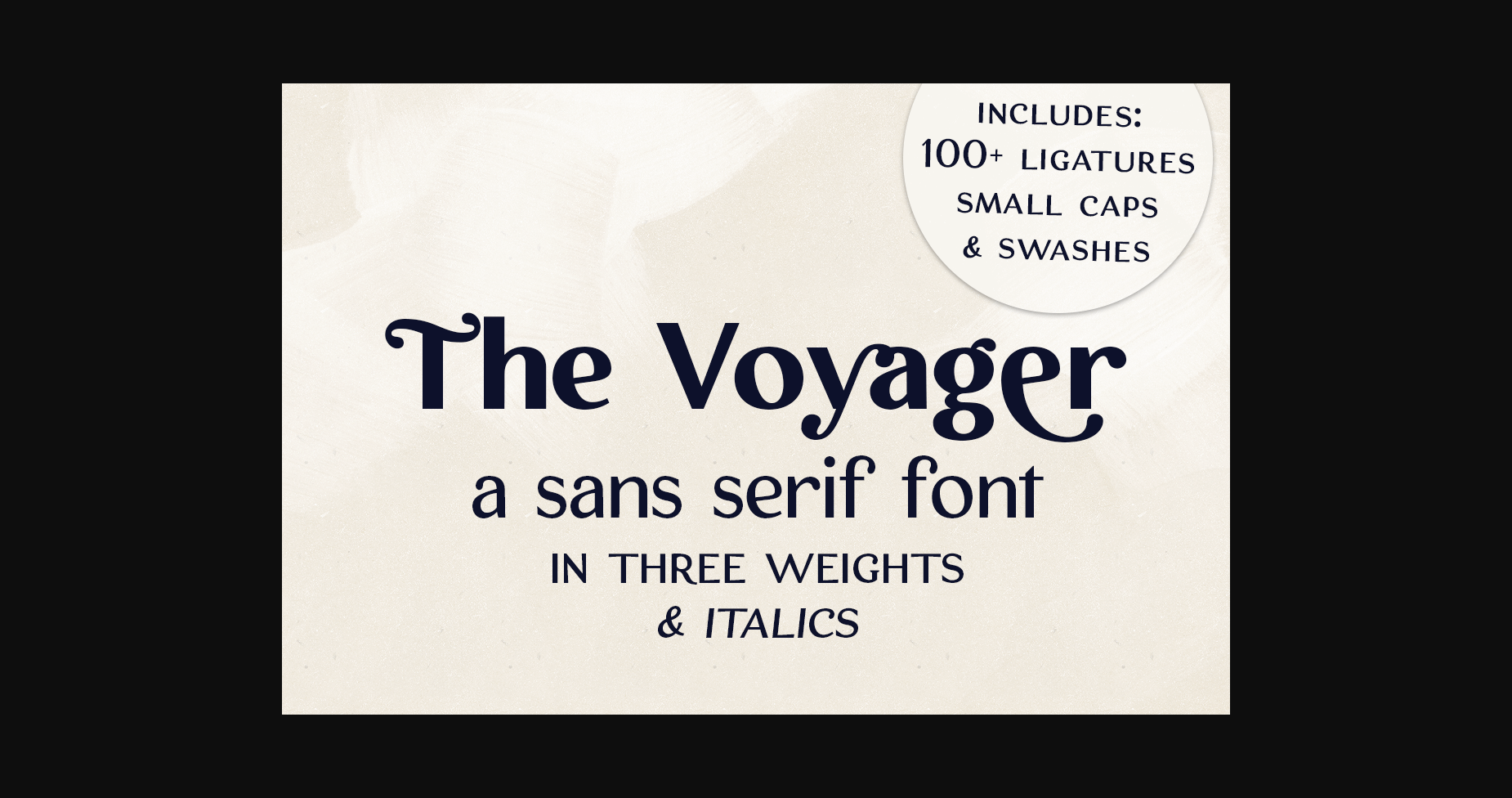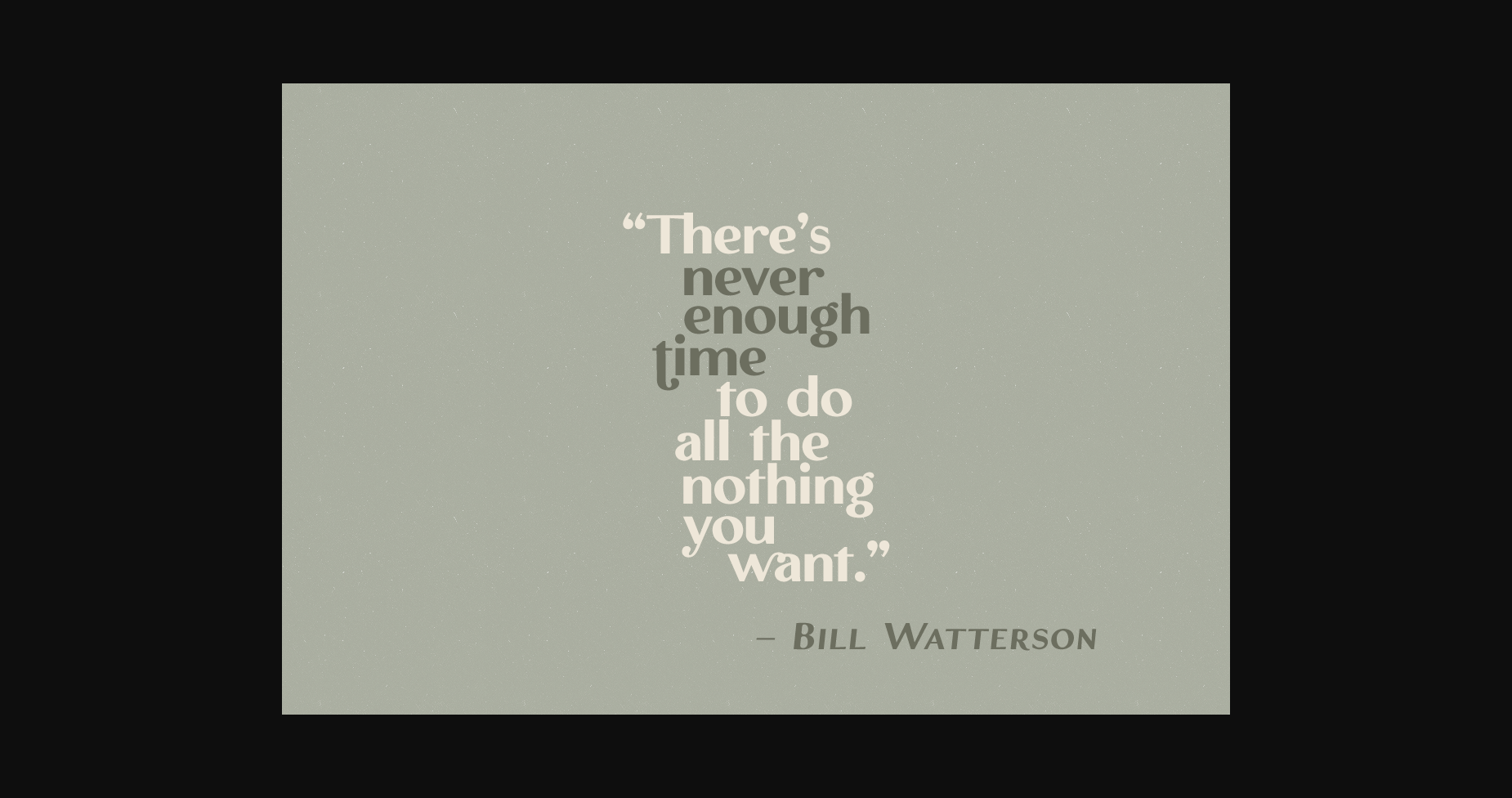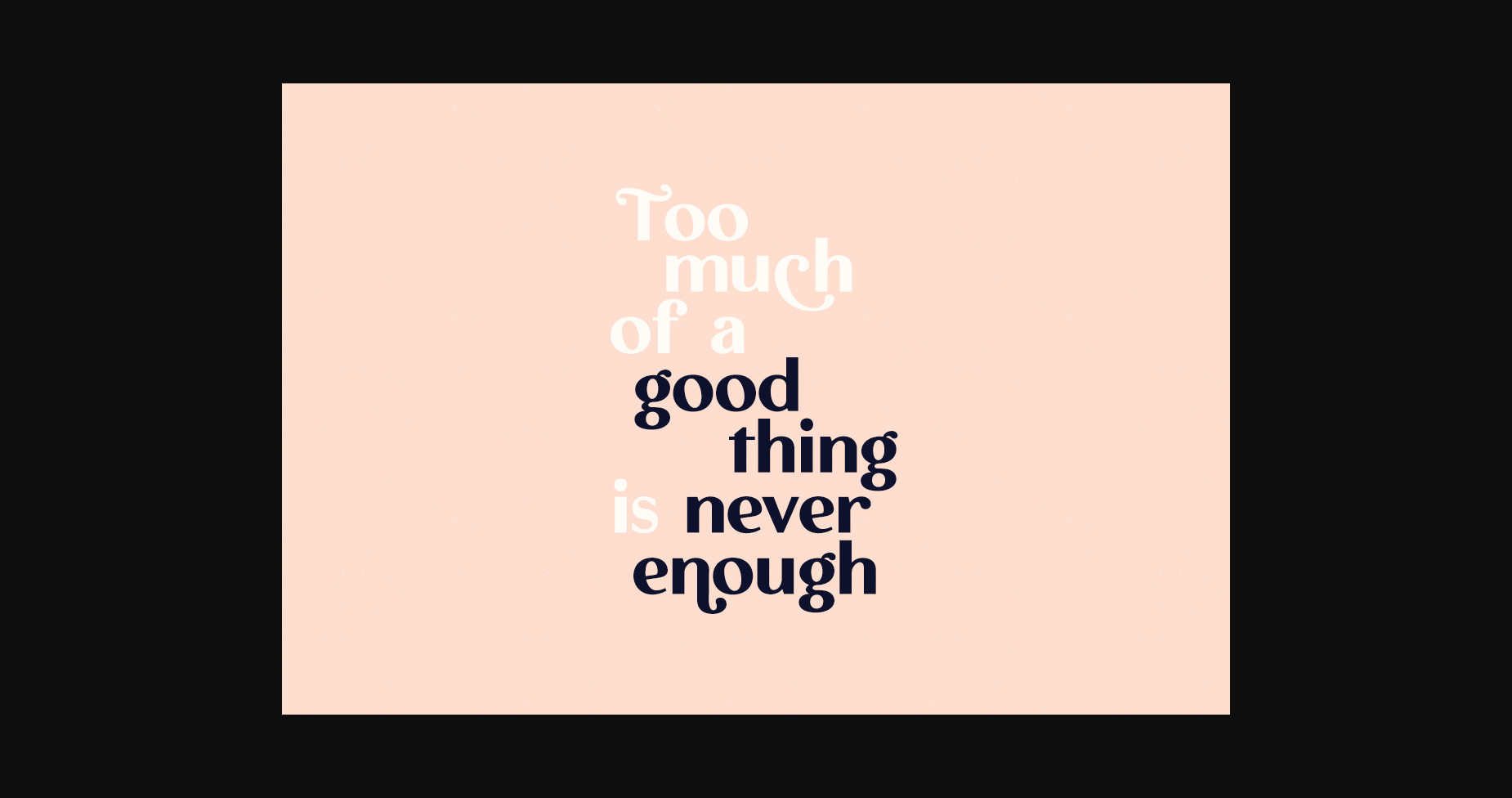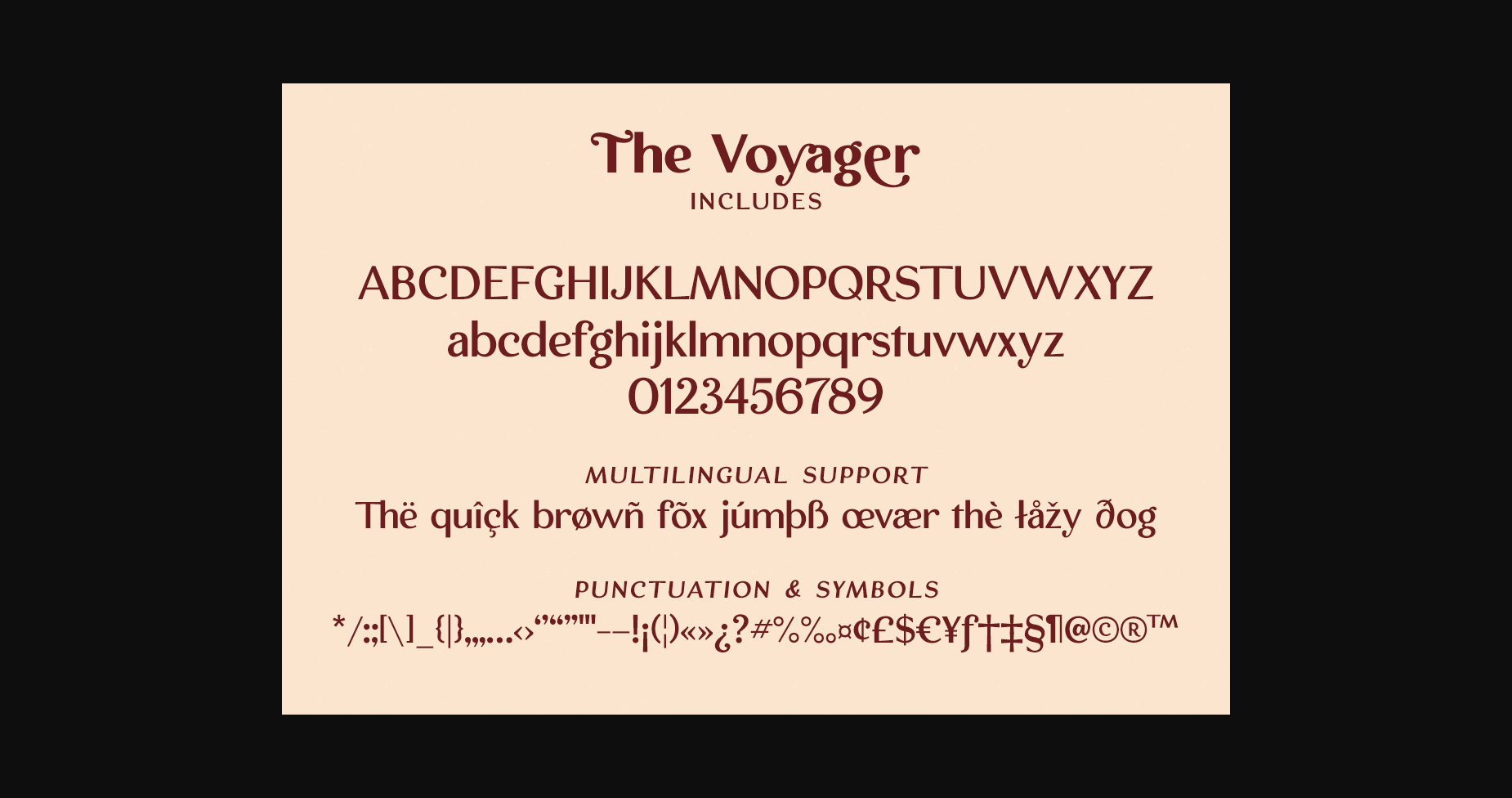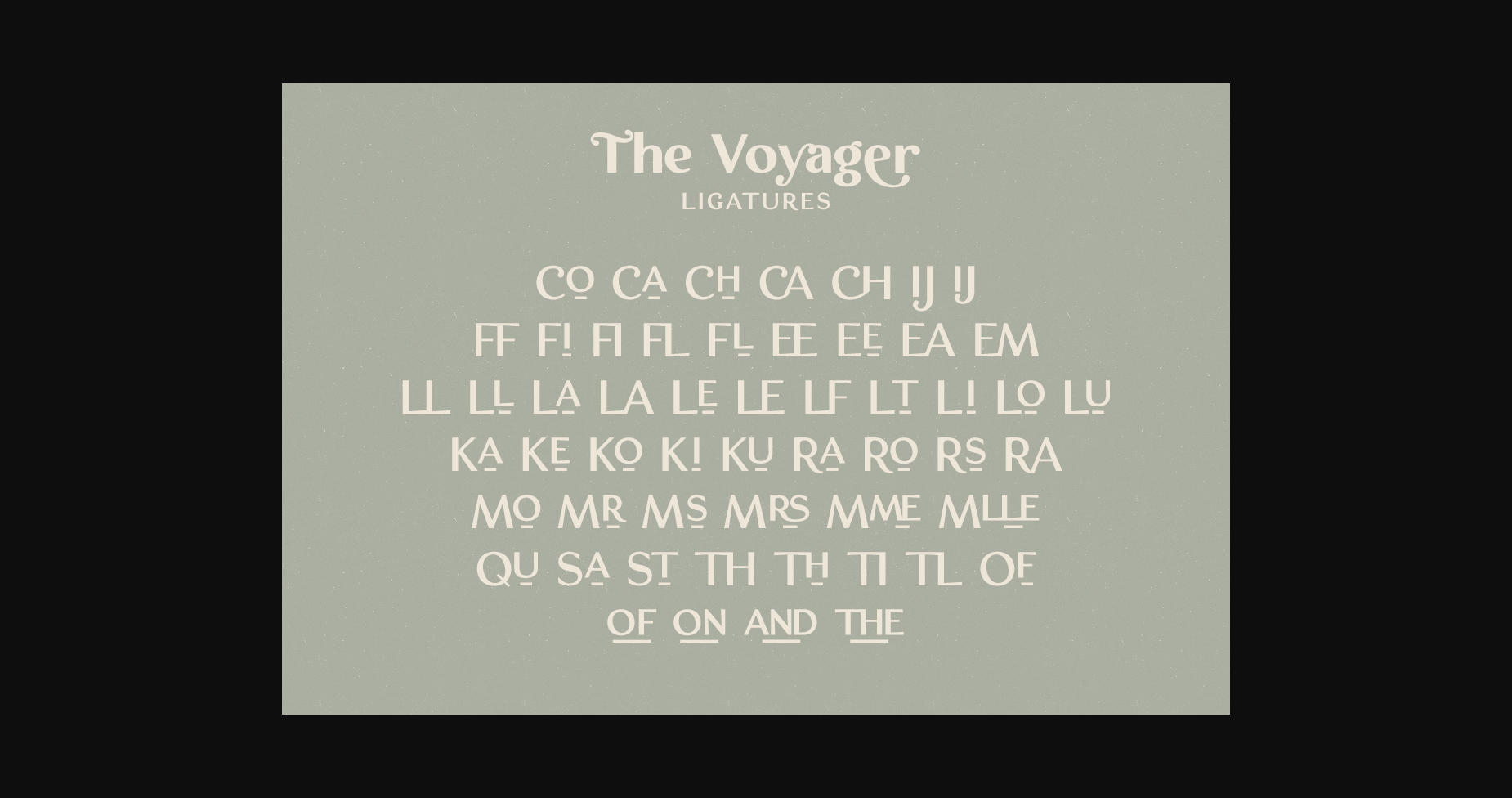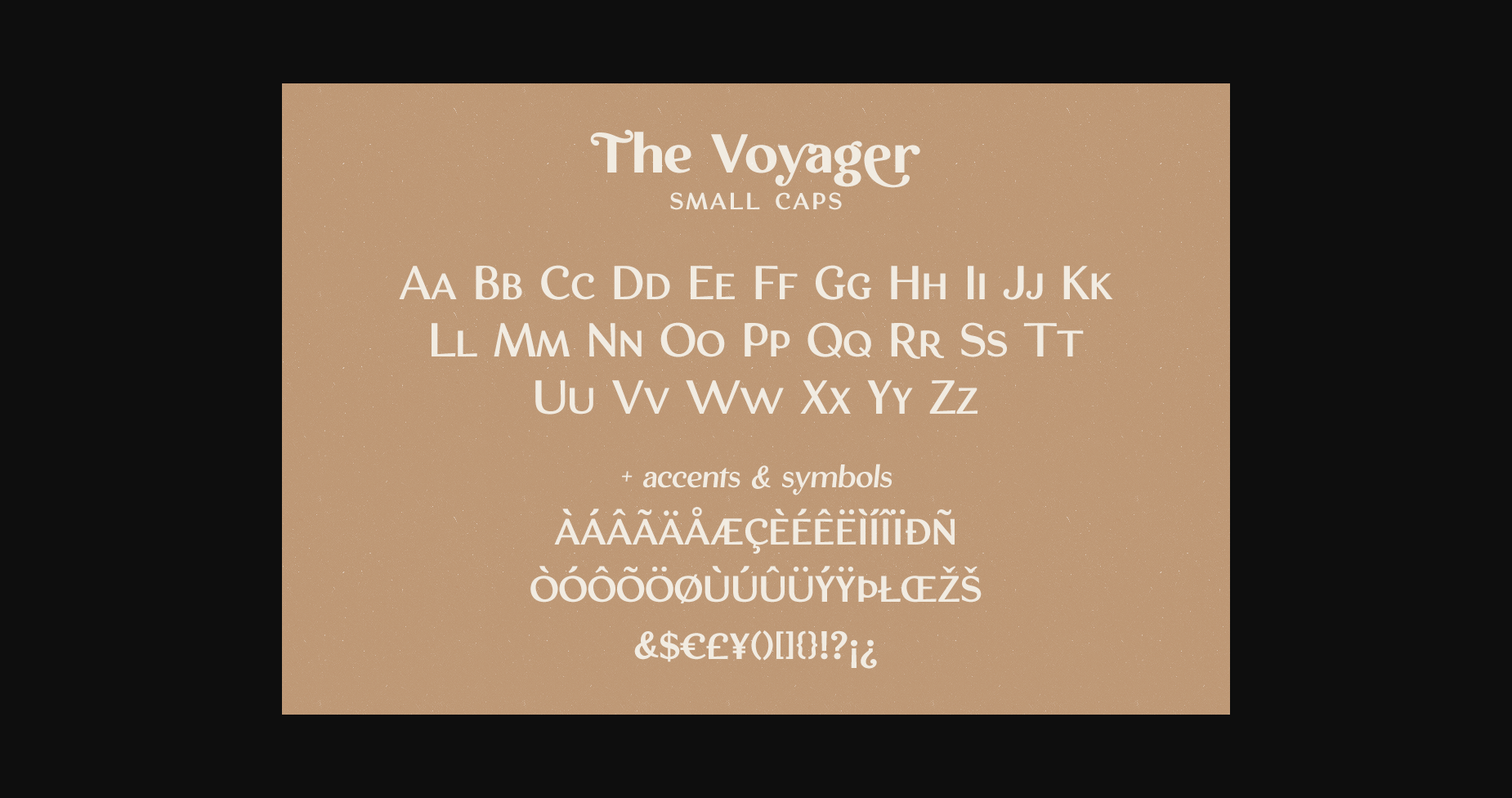
The Voyager Font
About The Voyager Font
The Voyager is a stylish sans serif font with a retro look. The Voyager is perfect for logotype design, magazine layouts, titles and short texts.